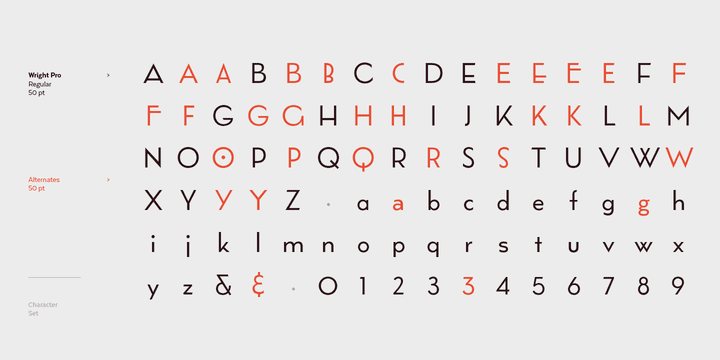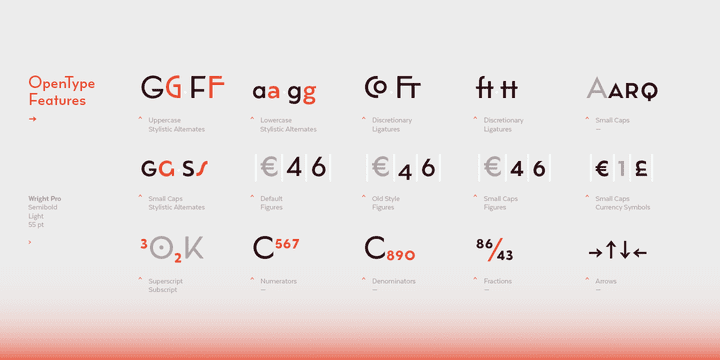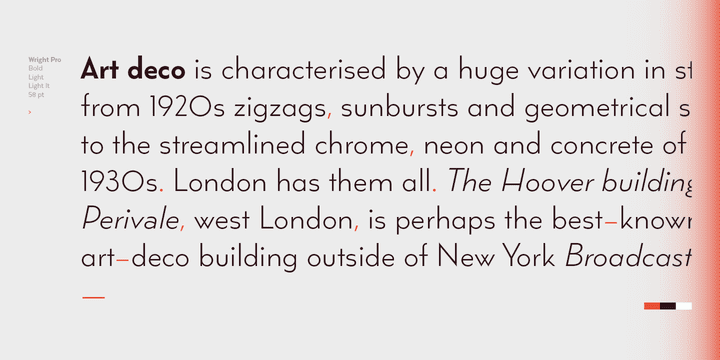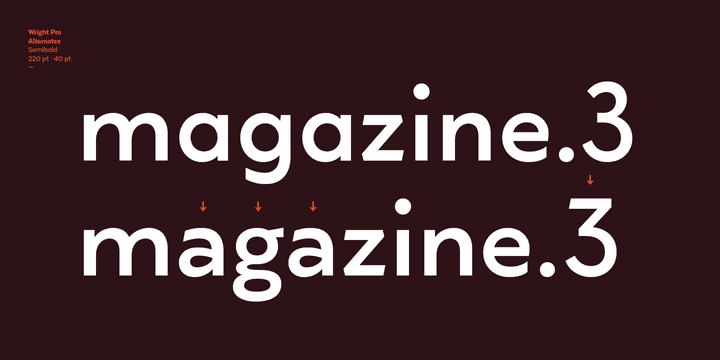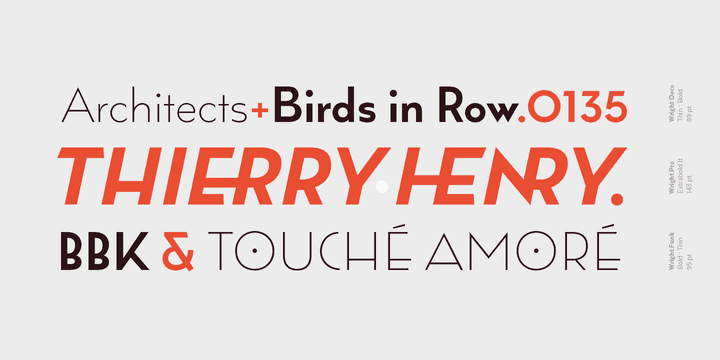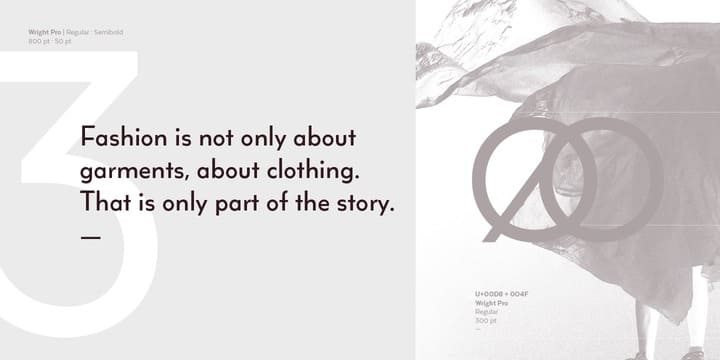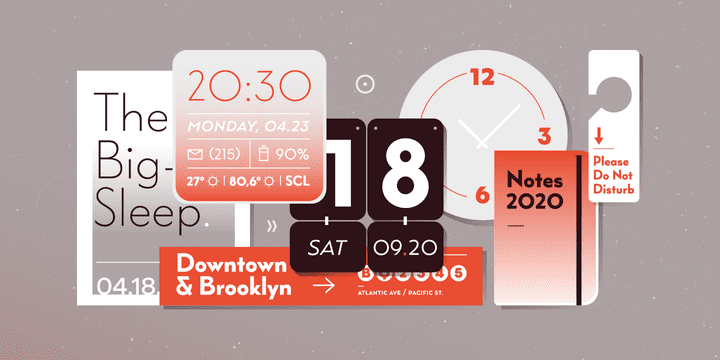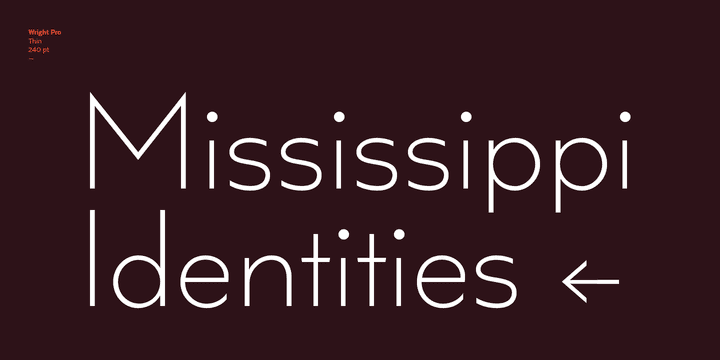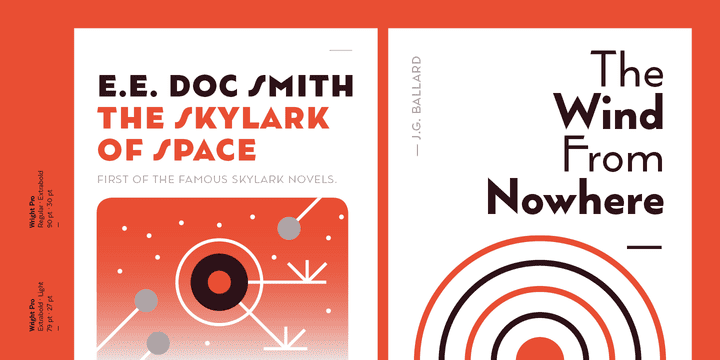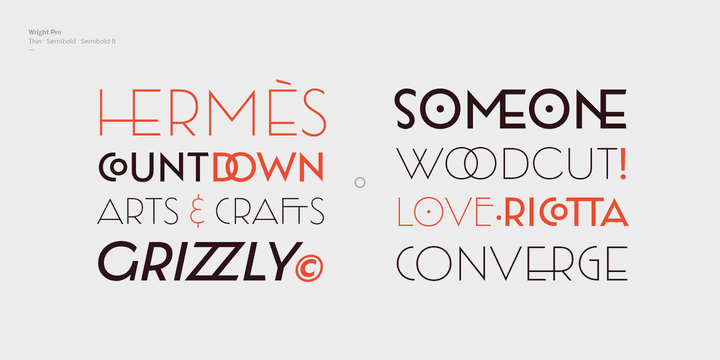
Wright Complete Family (48 fonts)
Wright consists of 4 subfamilies, Wright Pro Family, Wright Roman Family, Wright Deco Family, Wright Funky Family each containing 12 fonts: 6 weights plus italics—48 fonts in all. Its wide range of alternates and ligatures make it an ideal workhorse suitable for a variety of projects and give your designs a stylish appearance and unique look.
As you would expect from Latinotype, this font comes with a standard set of 800 characters and supports over 200 Latin-based languages.